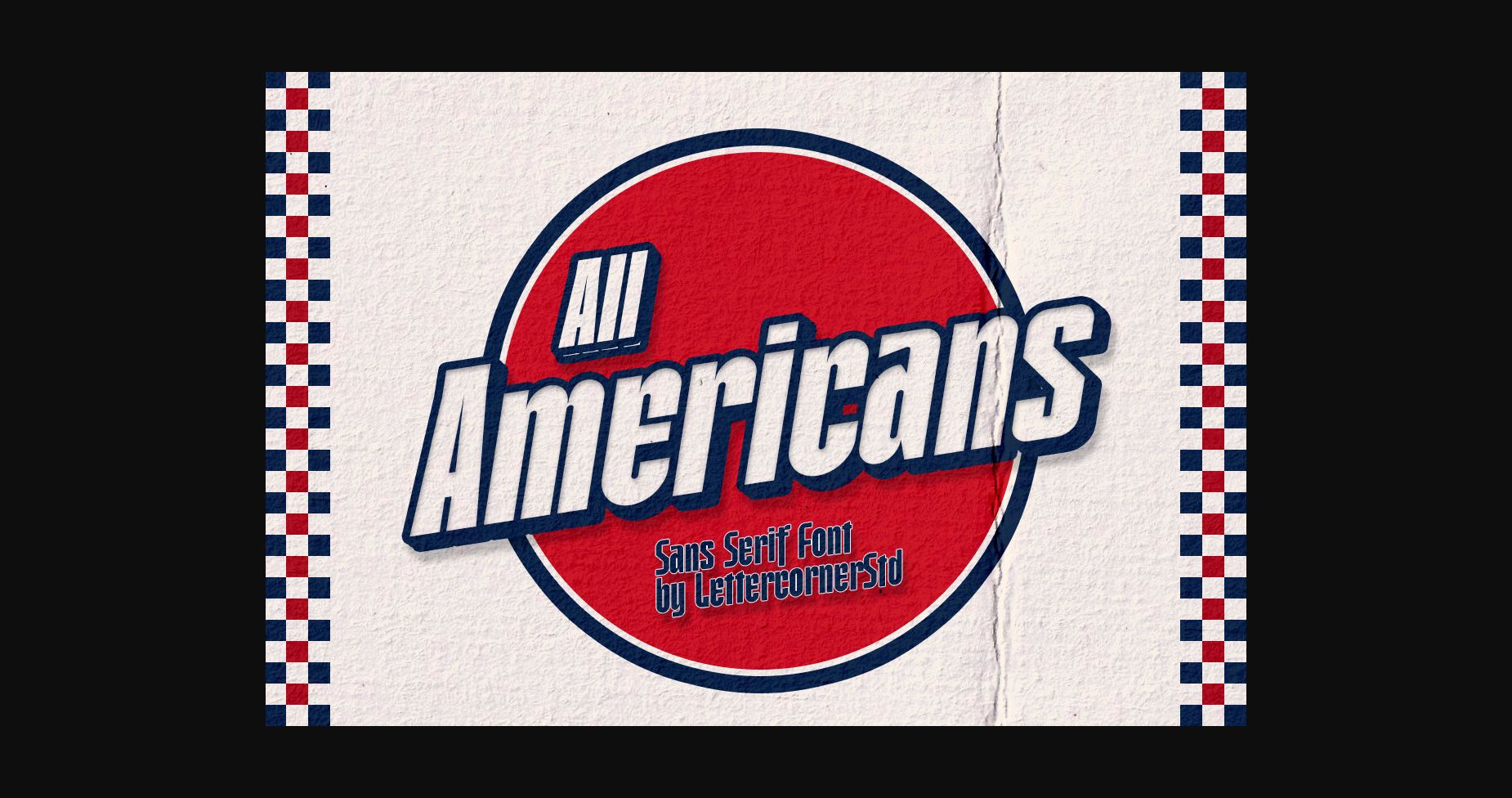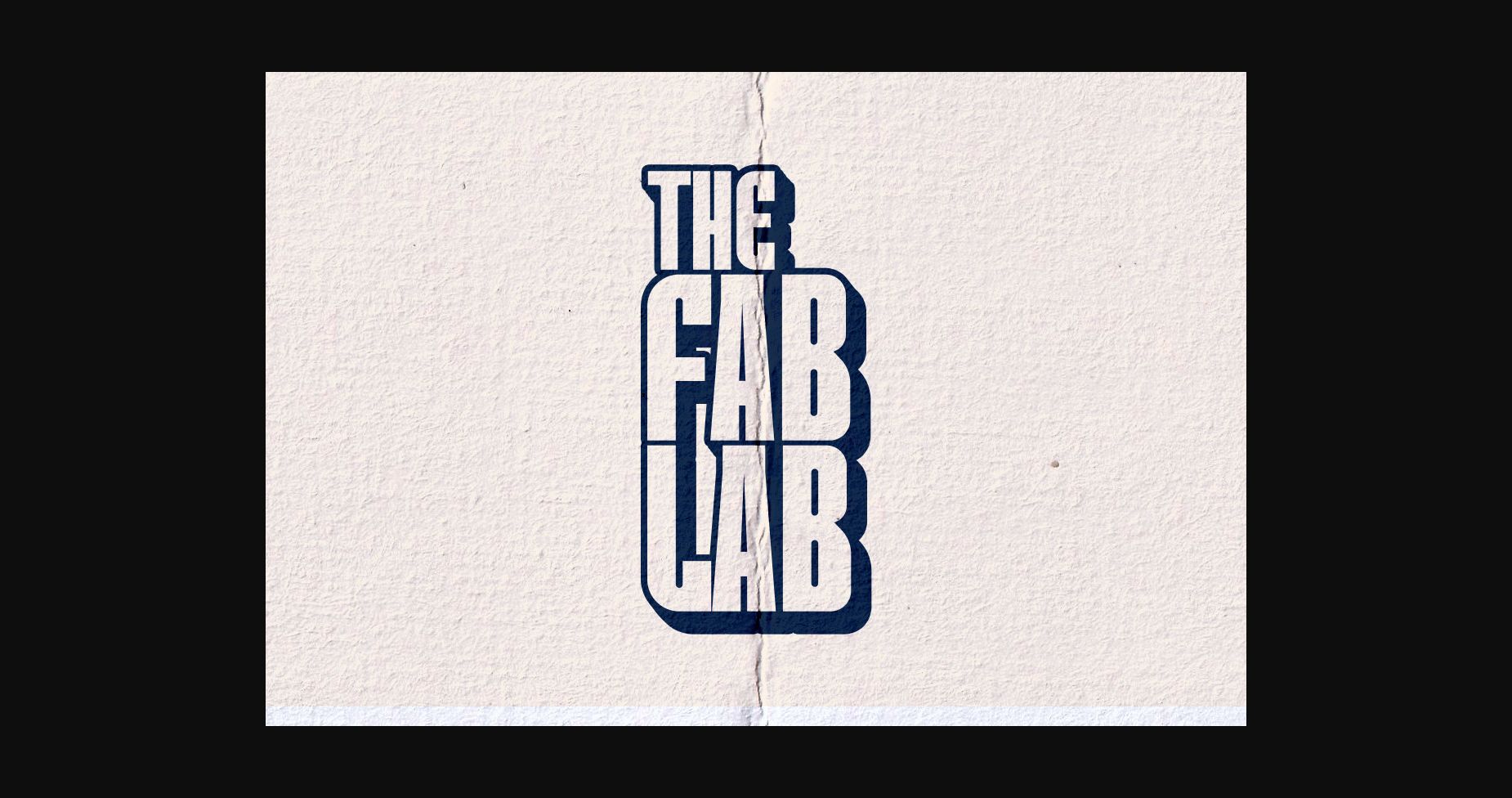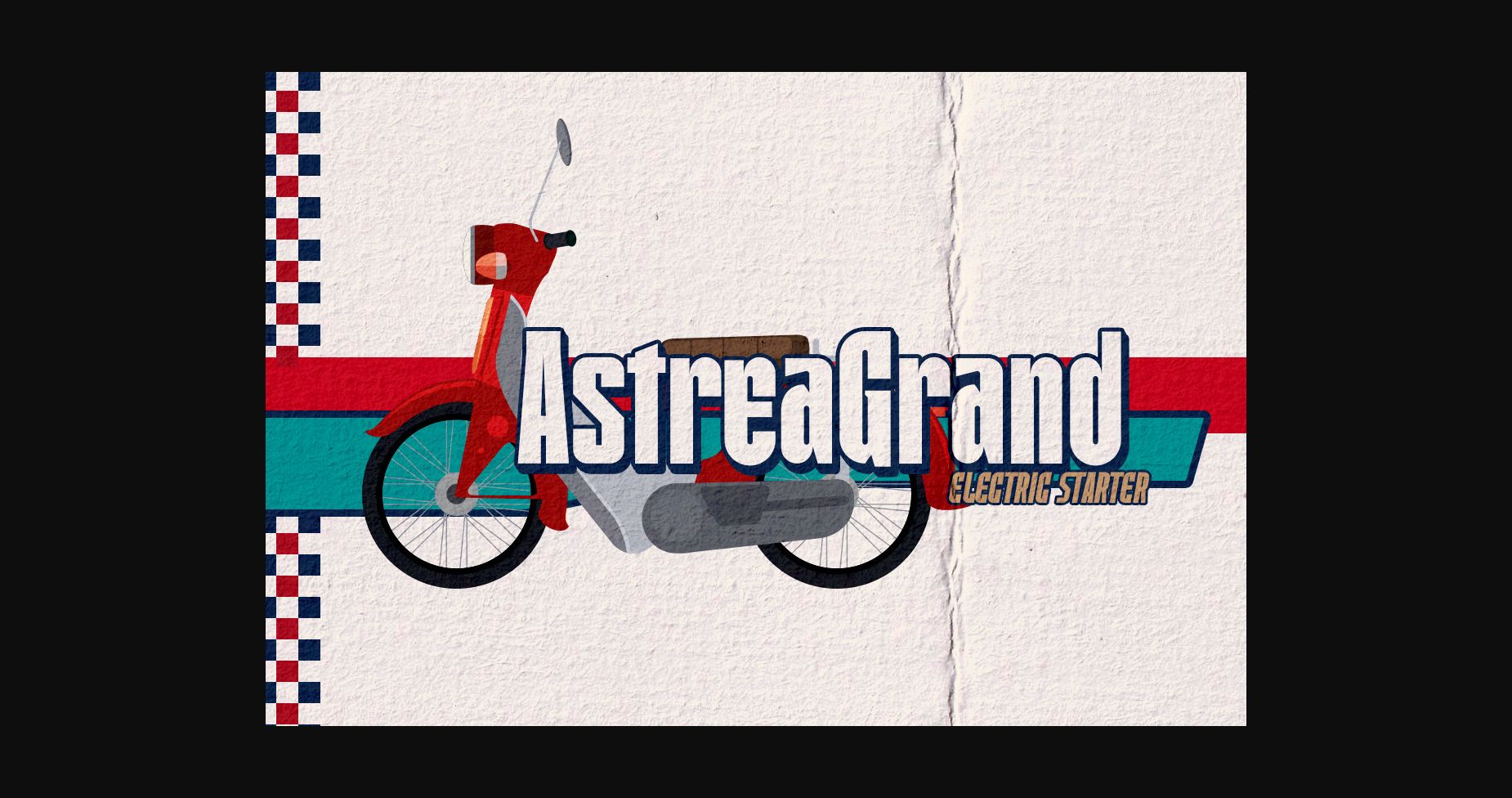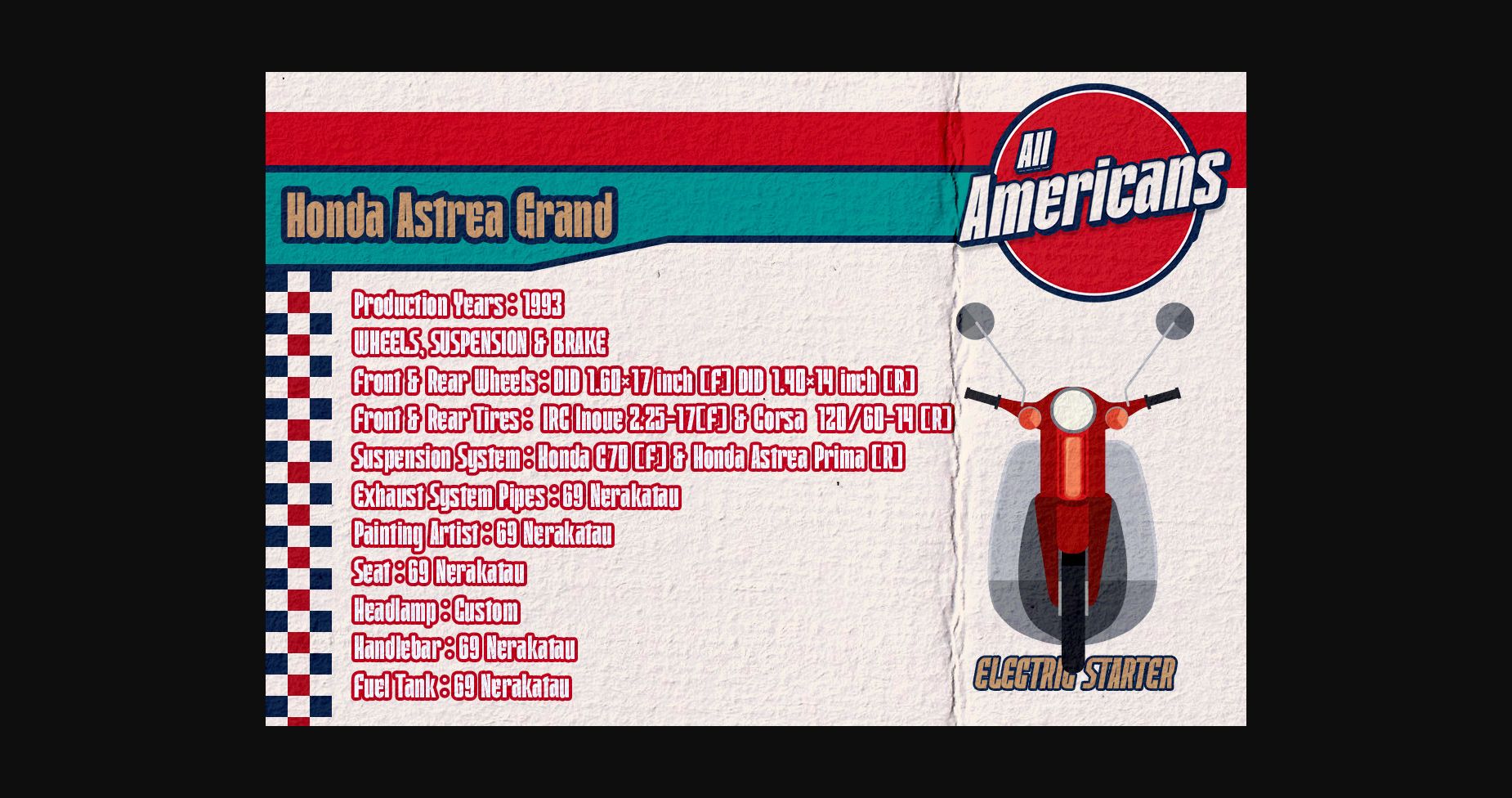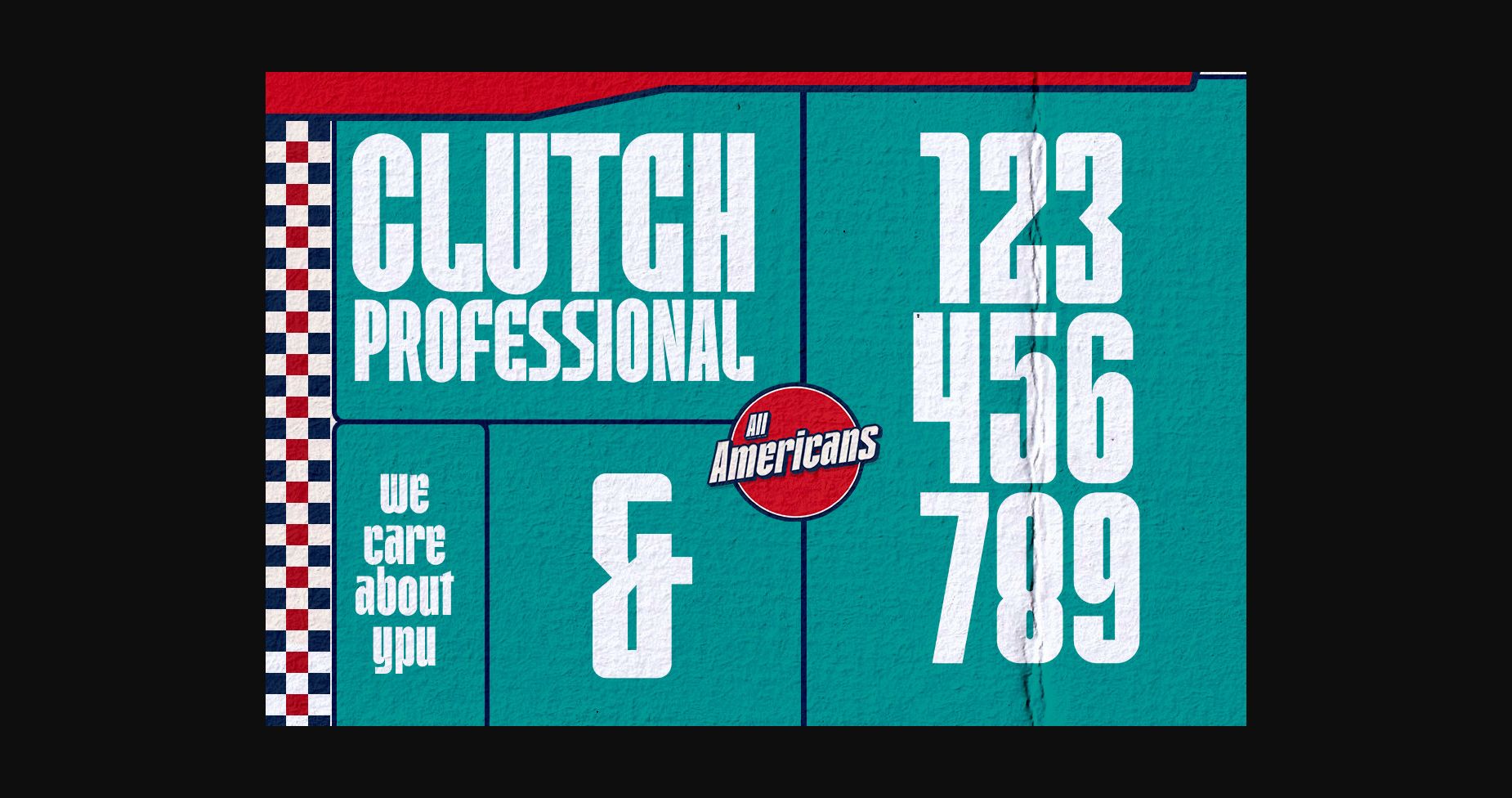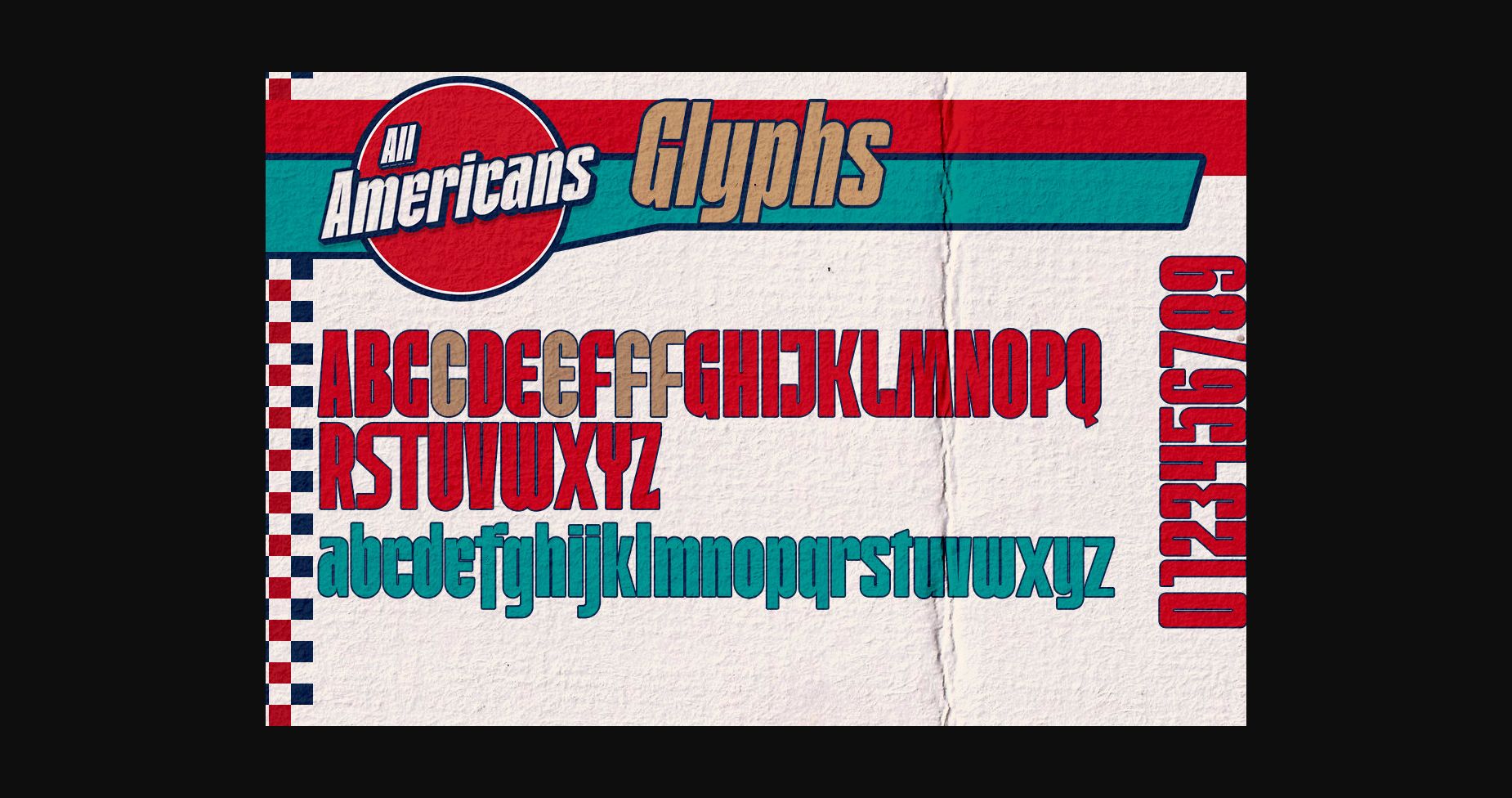
All Americans Font
About All Americans Font
All American is a sturdy sans serif font with strong character, inspired by the typeface in retro motorcycles. This typeface is perfect for an elegant logo, branding, movie poster, layout magazine, sport wear, packaging product, quotes, or simply as a stylish text overlay to any background image.